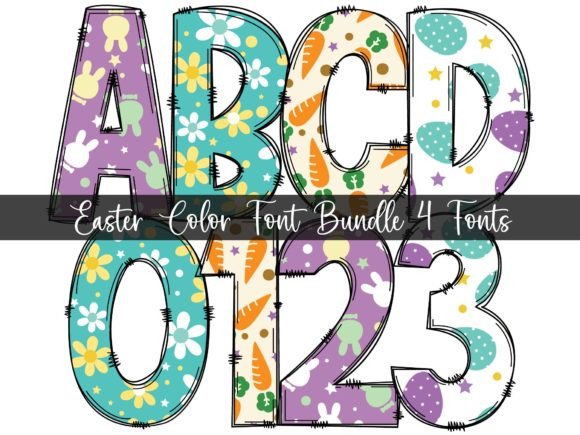
If you're looking for a font that will add a pop of color and fun to your designs, look no further than Easter Font! Created by MDF, this decorative font is bold and eye-catching, perfect for headlines, logos, and social media graphics.
What sets Easter Font apart from other fonts is its vibrant hues. With a range of colors to choose from, you can make a bold statement with your designs. Whether you're creating an eye-catching poster or a playful logo, Easter Font is sure to add a unique touch.
But Easter Font isn't just about its colorful appearance. It's also a versatile font that can be used in a variety of contexts. Its bold lettering makes it ideal for headlines and titles, while its decorative style adds a touch of whimsy to any design. And because it's so eye-catching, it's sure to grab the attention of your audience.